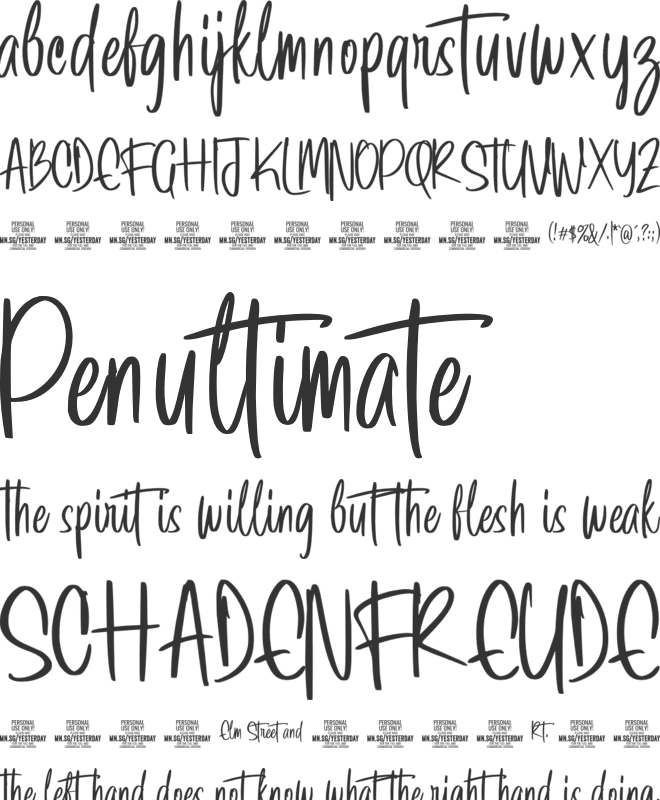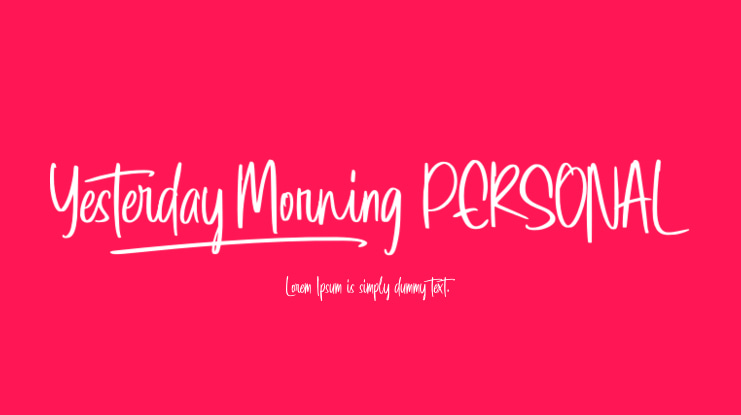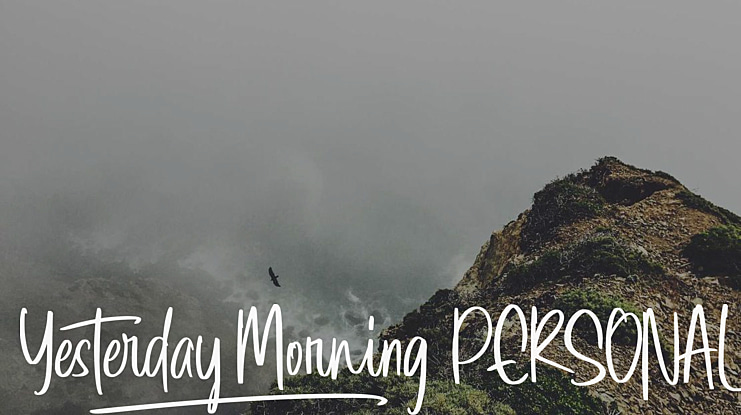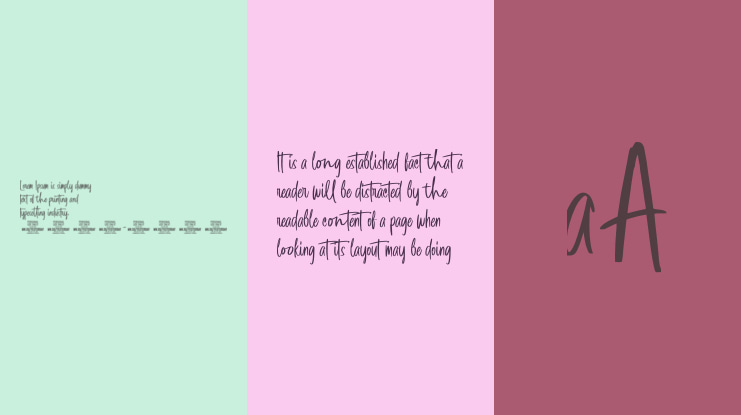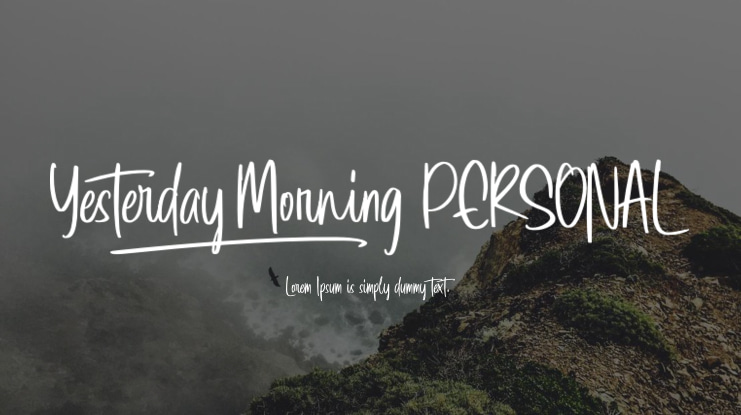
Yesterday Morning PERSONAL Font
Yesterday Morning is a vibrant handwriting font that captures the liveliness of a cute brush style.
The font's hand-brushed appearance adds an authentic touch, creating a warm and approachable feel.
To add a swash to a word, use an underscore (_) anywhere within the word.
Use multiple underscores to create different swashes.
For example: Crea___tion